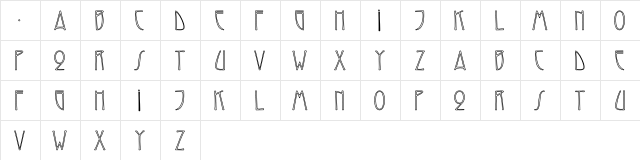
ReynoldCaps Hollow Regular
Design Context for ReynoldCaps Hollow Typeface
ReynoldCaps Hollow is a composed and adaptable typeface that performs quietly and consistently across a wide range of design contexts.